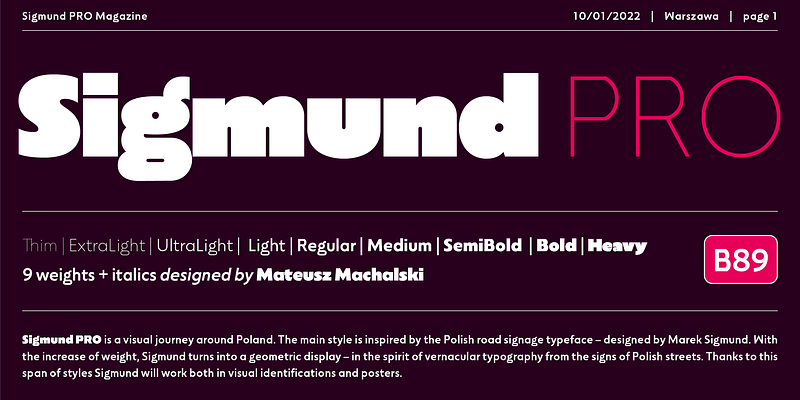
Sigmund Pro Font Free Download is a sleek and modern sans-serif typeface designed for clean, professional typography. With its geometric shapes, balanced spacing, and minimalist structure, this font is perfect for branding, UI/UX design, corporate materials, and editorial content that demands clarity and contemporary style.
It comes in multiple weights and styles, offering flexibility for both headings and body text. Whether you're designing in Figma, Adobe Illustrator, or Canva, Sigmund Pro integrates effortlessly into your workflow, making it a favorite among digital designers and creatives.